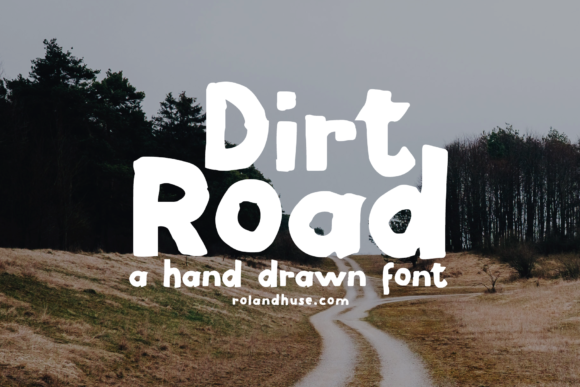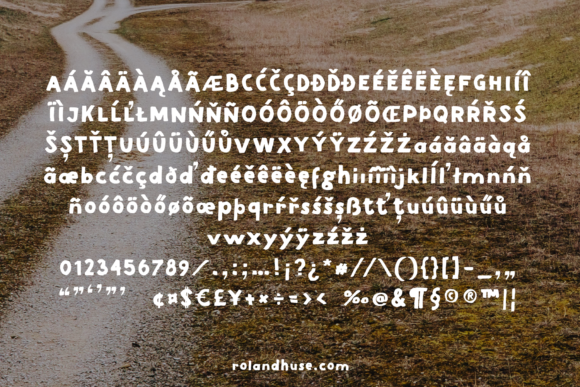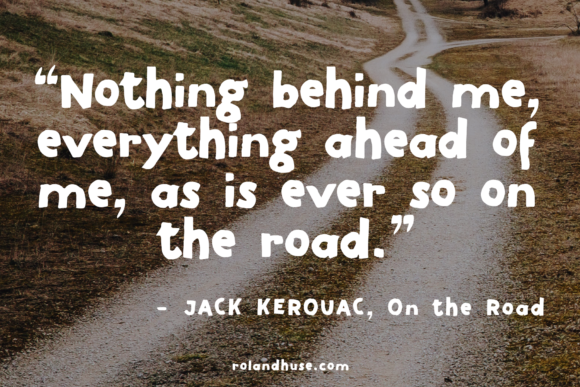
Dirt Road Font: A Rustic Display Font for Playful Designs
About the Dirt Road Font
Presenting Dirt Road Font, a unique and stylish typeface that will make your work stand out. Dirt Road is a hand-drawn rustic font that looks its best in large sizes. It’s great for kids-themed projects, posters, titles, organic products and much more!
Its hand-drawn nature and strong strokes make Dirt Road ideal for headlines, posters, and branding projects requiring a rustic or vintage feel. It works exceptionally well for products emphasizing natural or handcrafted elements, such as organic food, artisanal goods, or outdoor adventures. However, its low x-height and uneven stroke weight make it unsuitable for body text or UI elements where readability is paramount.
Pairing Dirt Road with a clean sans-serif like Open Sans for body copy provides excellent contrast and readability. For a more playful feel, a rounded geometric sans-serif such as Futura would complement its organic forms. A simple serif like Lora could add a touch of classic elegance to designs using Dirt Road.
Dirt Road possesses a bold, friendly, and approachable personality. It evokes a sense of warmth and authenticity, making it perfect for brands that want to convey a down-to-earth and trustworthy image.